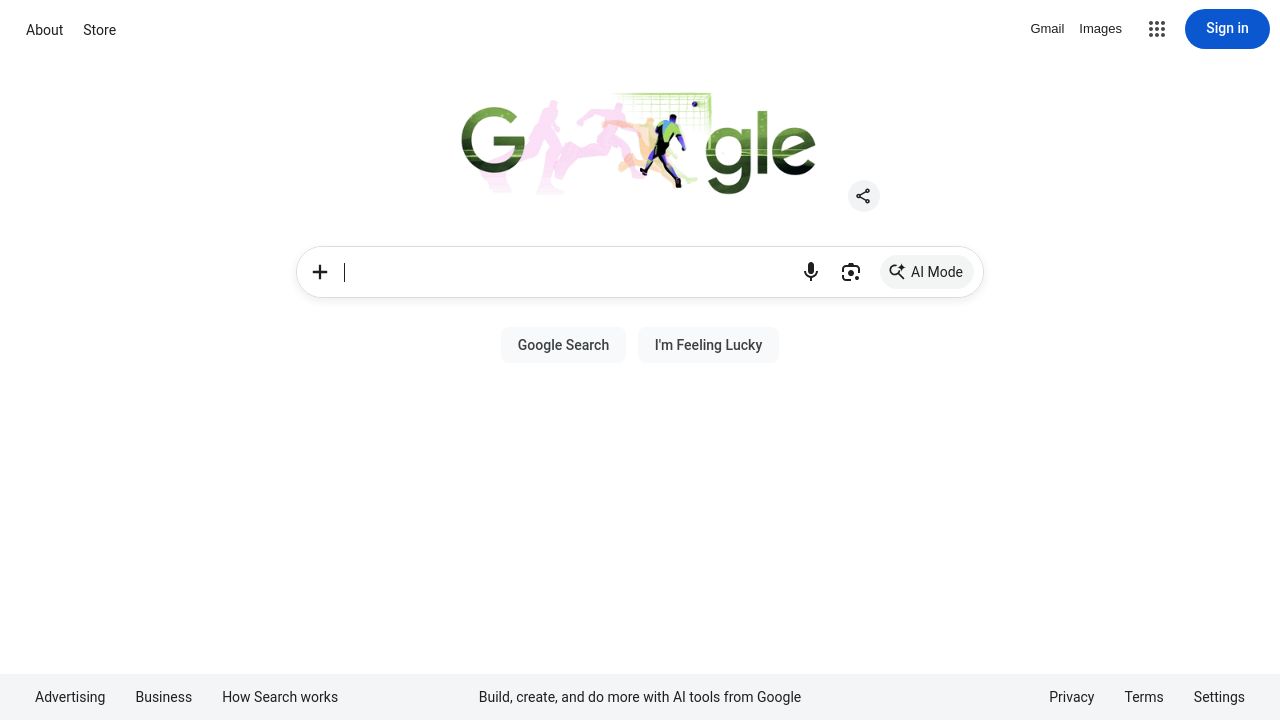
google.co.jp: What fonts does Google use? - Arial, Roboto, Google Sans
What fonts does Google use?
Google, the leading search engine, utilizes a distinct set of fonts that enhance its user interface and accessibility. The primary fonts include Arial for its simplicity, Roboto for its readability, and the custom Google Sans which aligns with its brand identity. These choices suggest a commitment to clarity and efficiency, catering to a diverse audience seeking information quickly. The fallback font, Helvetica, ensures a seamless experience across various devices and platforms.
Frequently asked questions about Google.co.jp's fonts
What fonts does google.co.jp use?
The primary fonts used by google.co.jp are Arial, Roboto, and Google Sans. Arial is a system font, while Roboto and Google Sans are custom to Google.
How does Google Sans compare to other fonts?
Google Sans is designed specifically for Google’s branding, offering a unique look that differs from conventional fonts like Arial or Helvetica, which are used for their simplicity.
What weights are available for these fonts?
Arial is available in weight 400, Roboto also comes in weight 400, while Google Sans is available in weights 400 and 700, providing versatility for various design needs.
What are the fallback fonts for google.co.jp?
The fallback fonts for google.co.jp include Helvetica, ensuring that the site maintains a consistent appearance across different browsers and devices when primary fonts are unavailable.